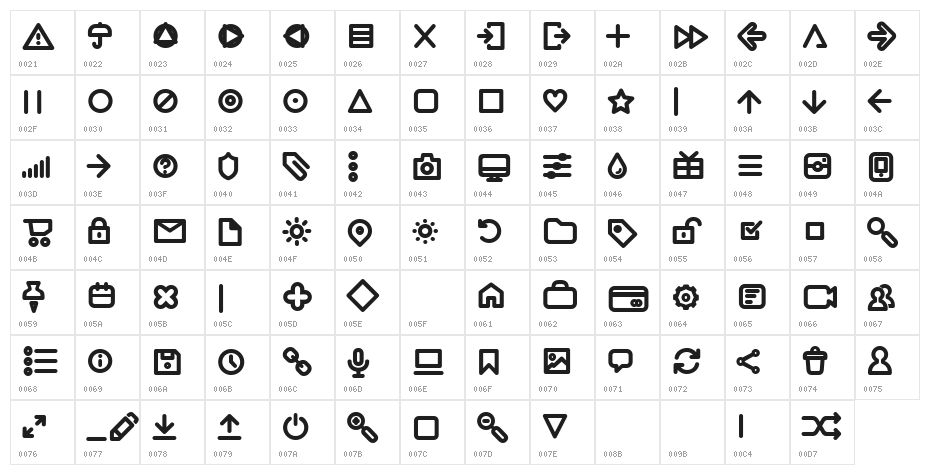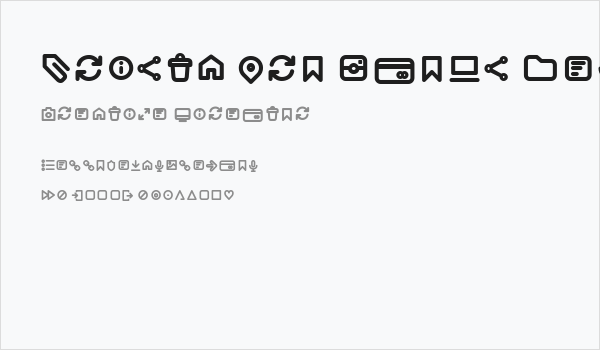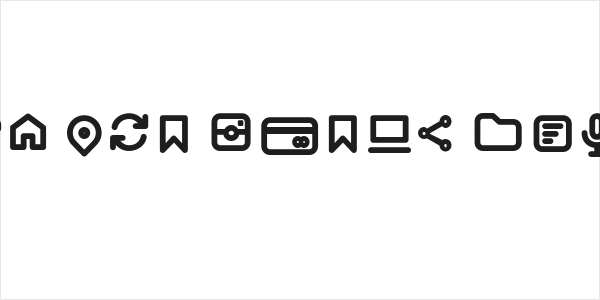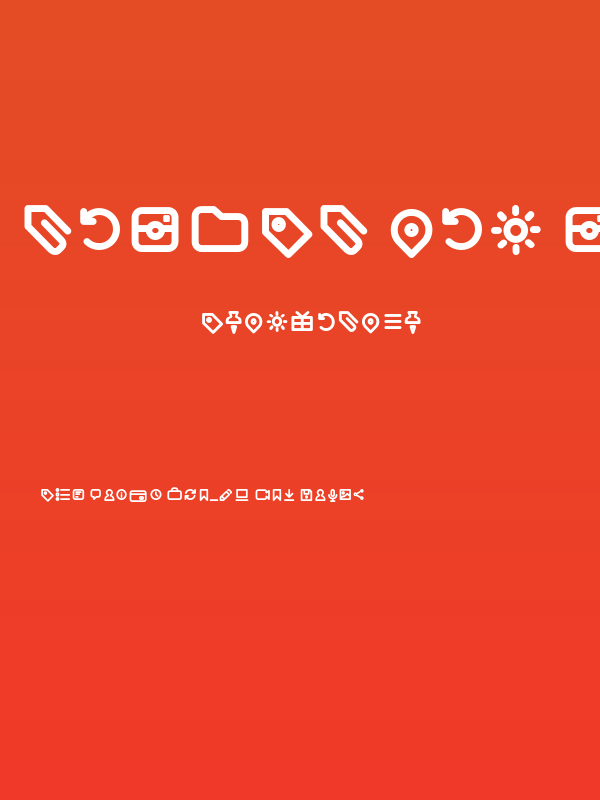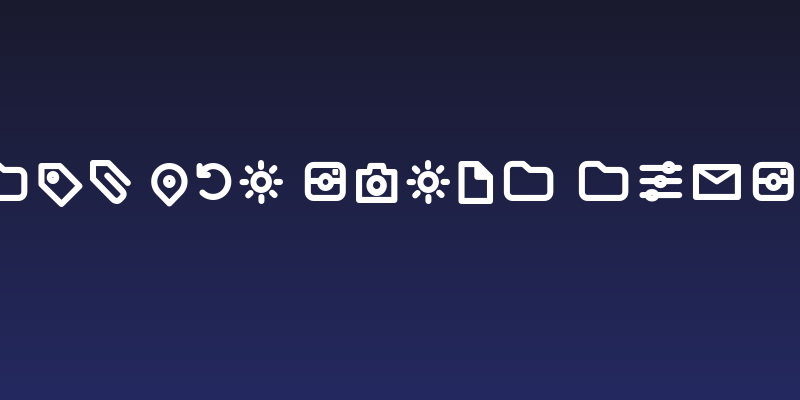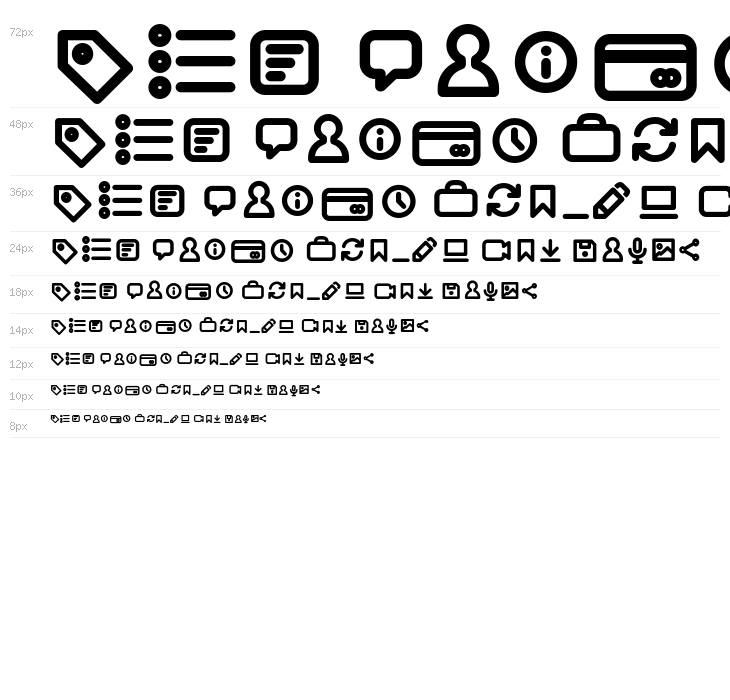
Arista Pro Icons SemiBold Font
Arista Pro Icons SemiBold Description
A set of rounded, semi-bold, geometric icons with consistent stroke thickness and smooth curves, designed for clarity and modern appeal. The icons are outlined, evenly spaced, and maintain a playful yet professional look.
| Overall Style | Modern, Playful, Minimalist |
| Use Case | Icons for interfaces, buttons, navigation, and infographics. |
| Proposed Projects | Mobile apps, web interfaces, dashboards, presentations, branding, UI/UX design. |